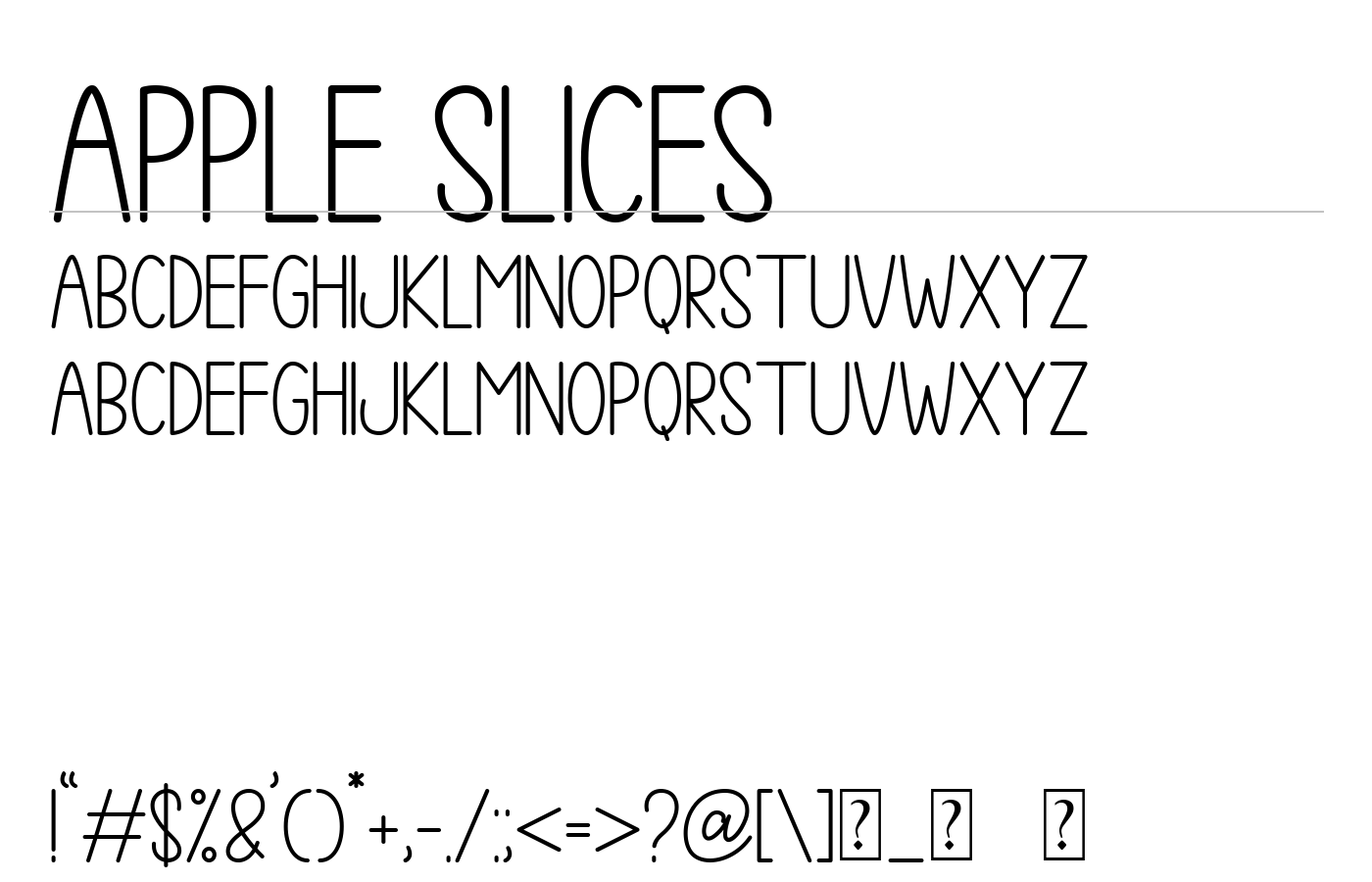
Apple Slices is a tall, narrow sans serif font with a playful, hand-drawn feel. Its clean lines and light weight give it an airy, casual look, making it ideal for fun, informal projects like children's books, greeting cards, or creative branding. This font works well in headlines and light-hearted designs where a unique and friendly style is desired.
Apple Slices Font
About Apple Slices Font
| Font family | Apple Slices Font |
| Designer | Prio Nurokhim Aji |